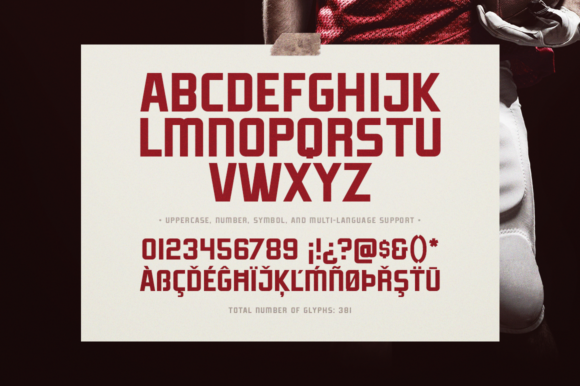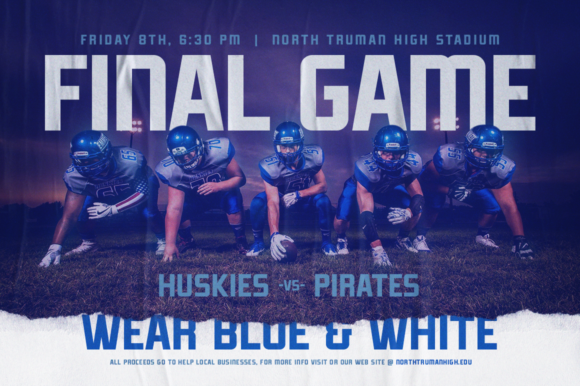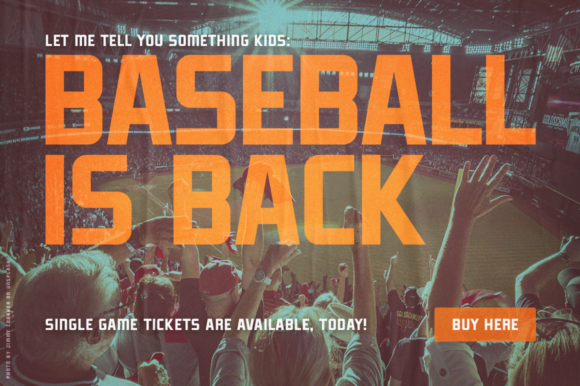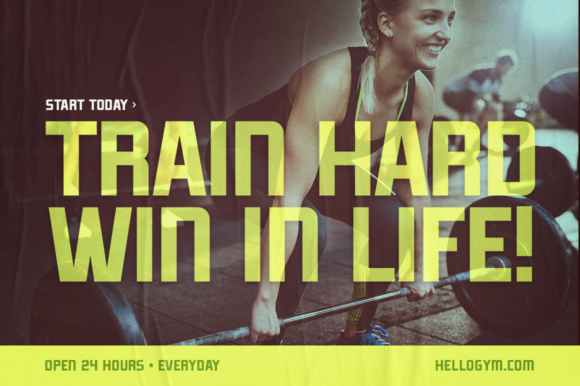
The Ultimate Display Font: A Deep Dive into Division One
I’ll never forget the time I was working on a project for a client who needed a bold, eye-catching font to make their brand stand out. I scoured the internet, tried countless fonts, but nothing seemed quite right. That was until I stumbled upon Division One – a cool, bold, and thick lettered display font that instantly elevated my design. In this article, I’ll share my experience with Division One, its features, and how to make the most of it in your designs.
An Honest Review of Division One
- ✨ Bold and Impactful: Division One is perfect for making a statement. Its thick letters and bold design make it perfect for headlines, titles, and any other text that needs to stand out.
- ✅ Versatile: Whether you’re working on a project for a fashion brand, a tech startup, or a non-profit organization, Division One can adapt to any topic or style.
- 💡 Easy to Read: Despite its bold design, Division One is surprisingly easy to read, even at smaller font sizes.
While Division One is an excellent font, it’s not perfect. Here are a few things to keep in mind:
- 🤔 Limited Use in Body Text: Due to its bold design, Division One may not be the best choice for body text or longer paragraphs. It’s best used for headings, titles, or short phrases.
- ⚠️ Not Suitable for Small Text: Division One can be difficult to read at very small font sizes (below 10-12 points). Use it for larger text sizes to get the most impact.
The Story Behind Division One
Division One was designed with one goal in mind: to create a bold and impactful font that could elevate any design. The designer, inspired by classic athletic typography, aimed to create a font that exuded confidence and strength. The result is a font that’s both versatile and attention-grabbing.
Q: What is Division One best used for?
A: Division One is best used for headlines, titles, and short phrases where you want to make a bold statement.
Q: Can I use Division One for body text?
A: While it’s possible to use Division One for body text, it’s not recommended. Its bold design can make longer paragraphs difficult to read.